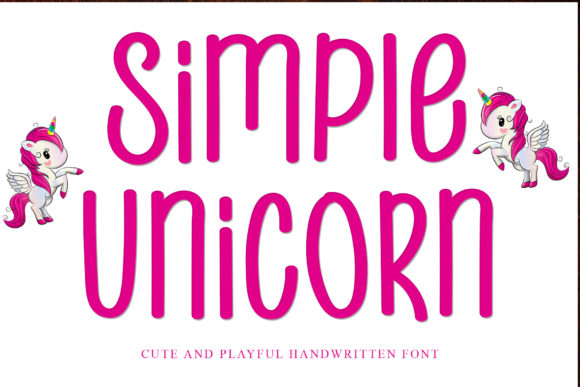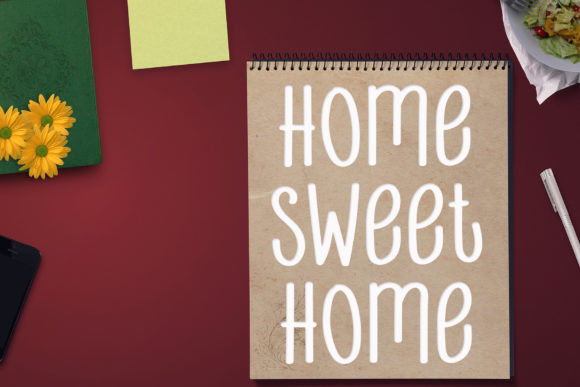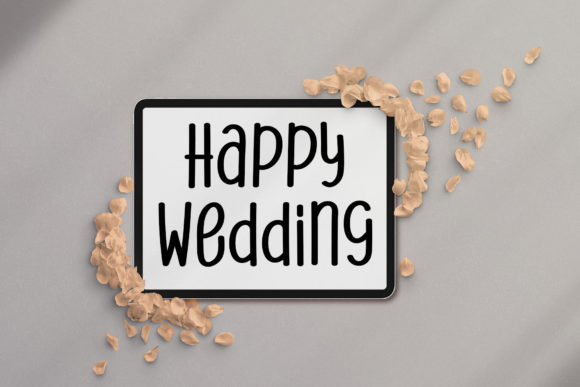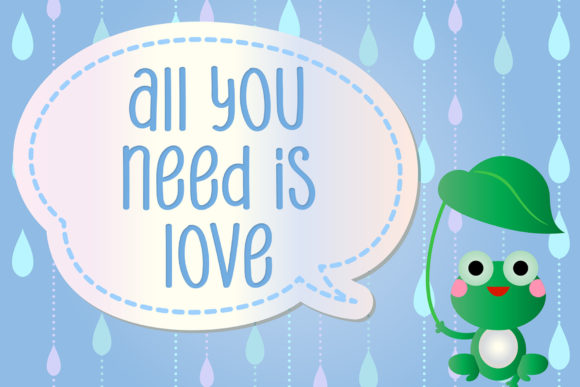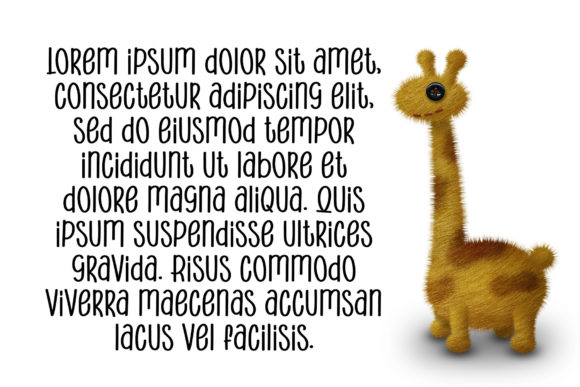
Simple Unicorn Font
About Simple Unicorn Font
Simple Unicorn is a simple, adaptable and friendly handwritten font. Whether you’re looking for fonts for Instagram or calligraphy scripts for DIY projects, this font will turn any creative idea into a true piece of art!